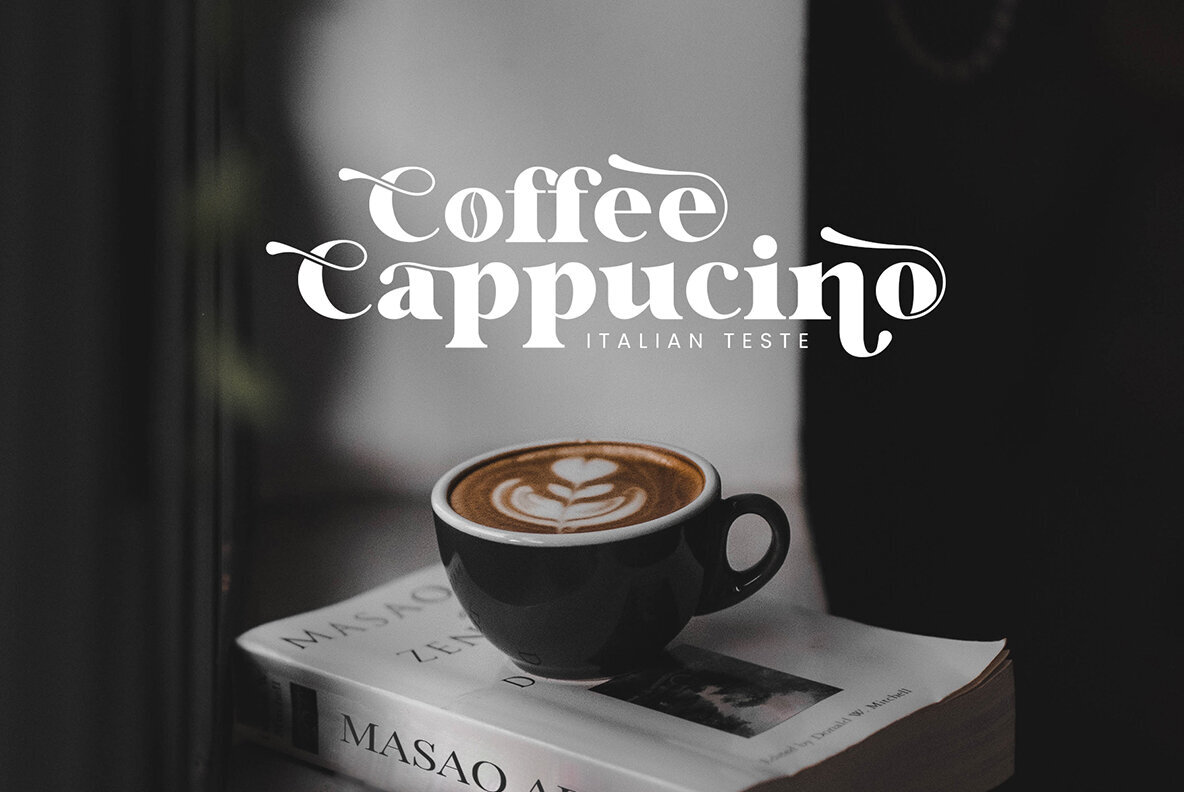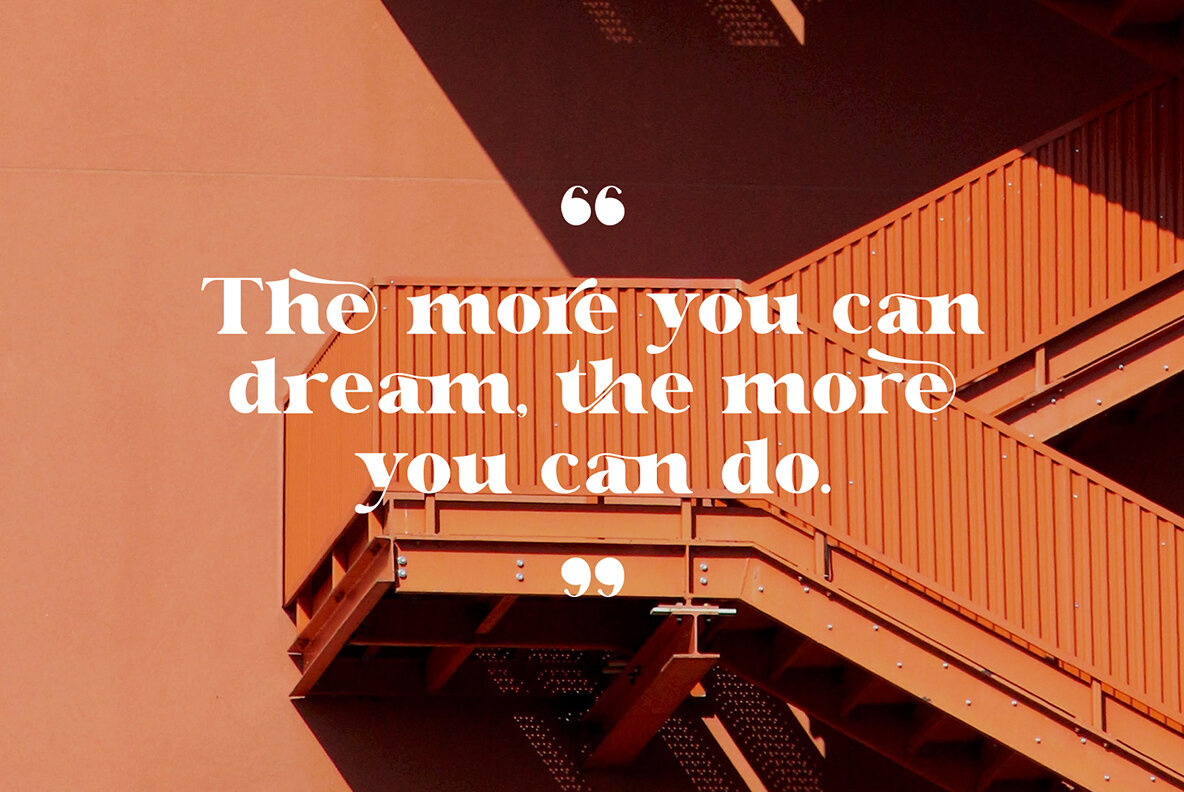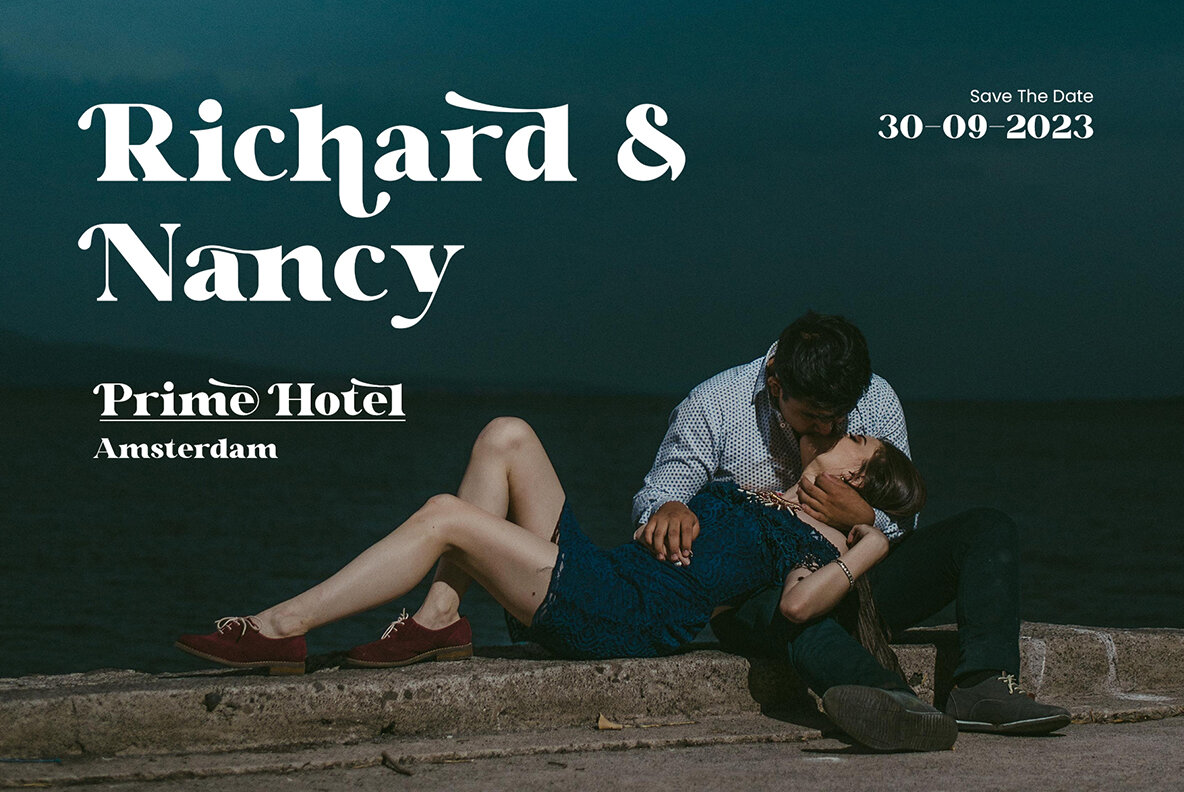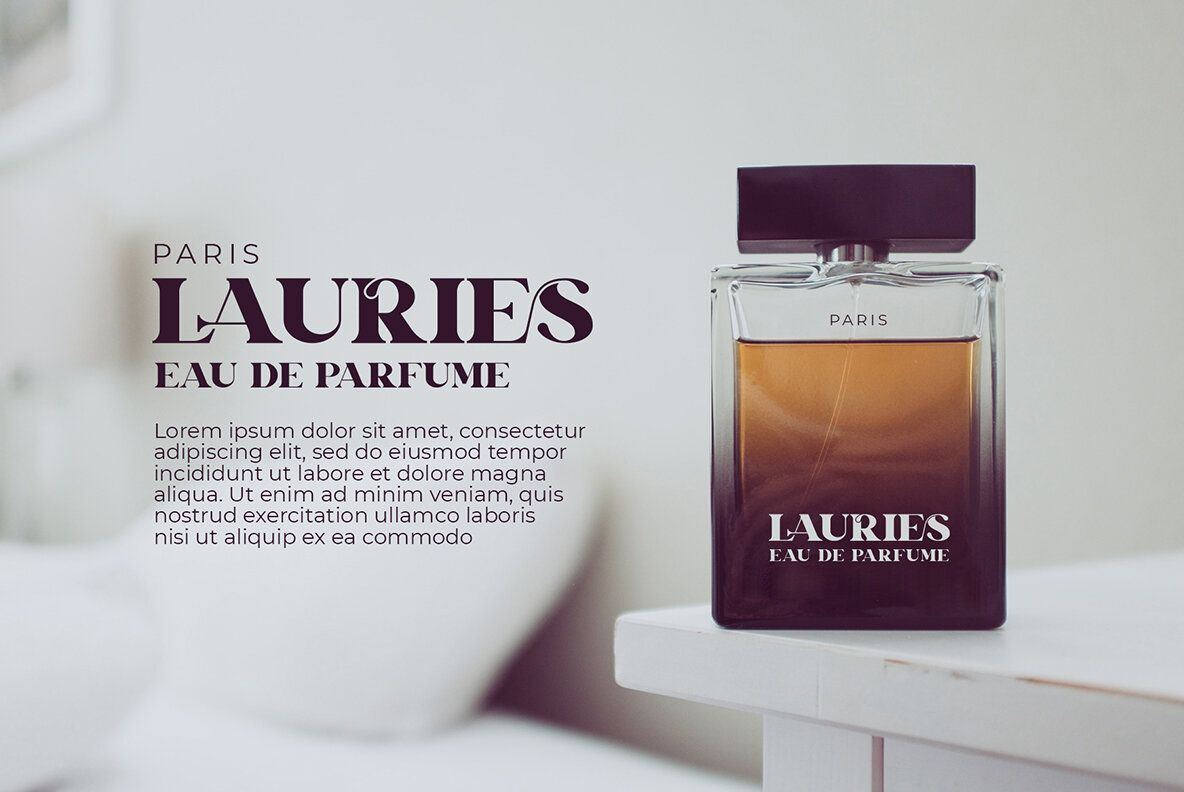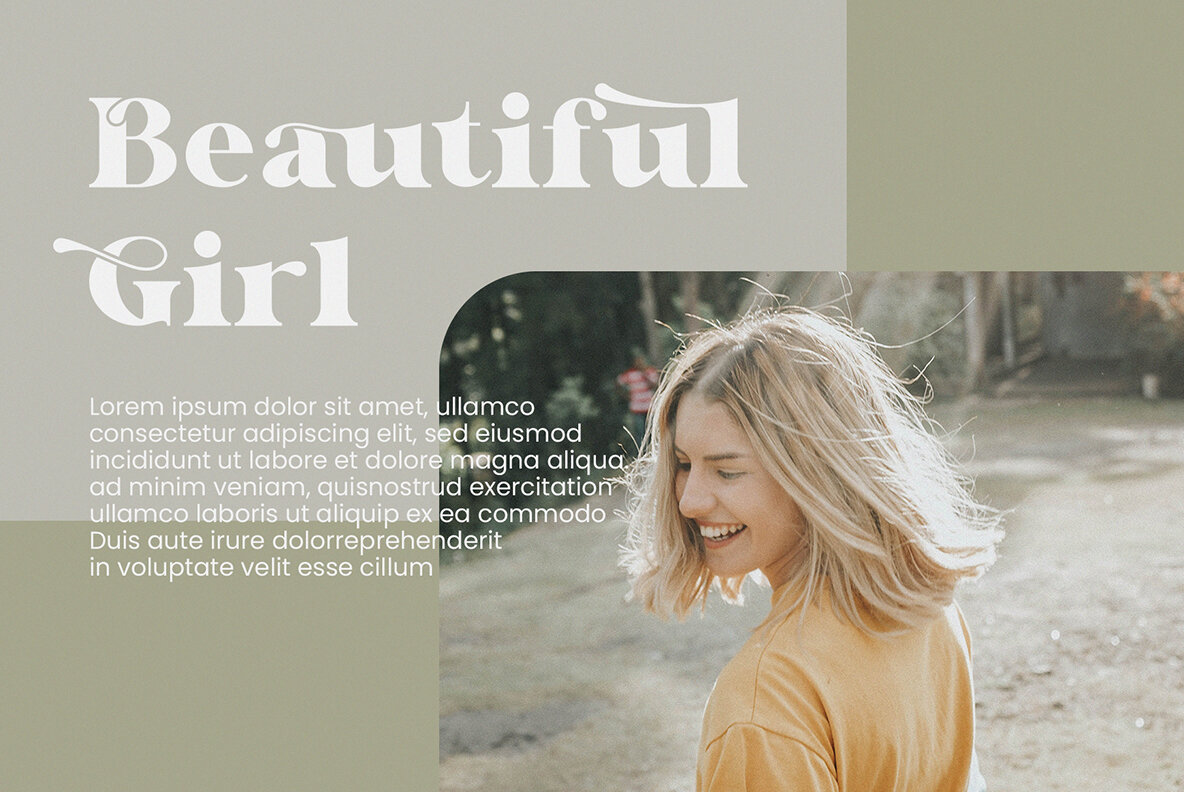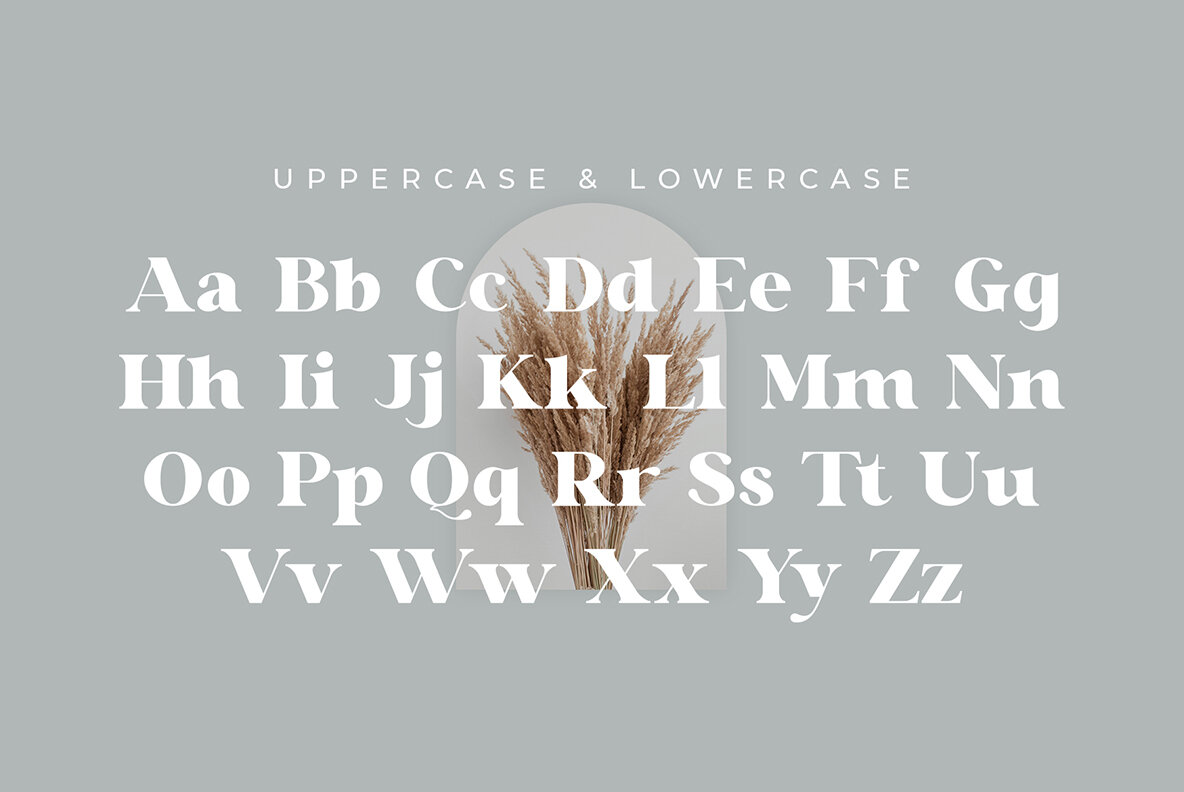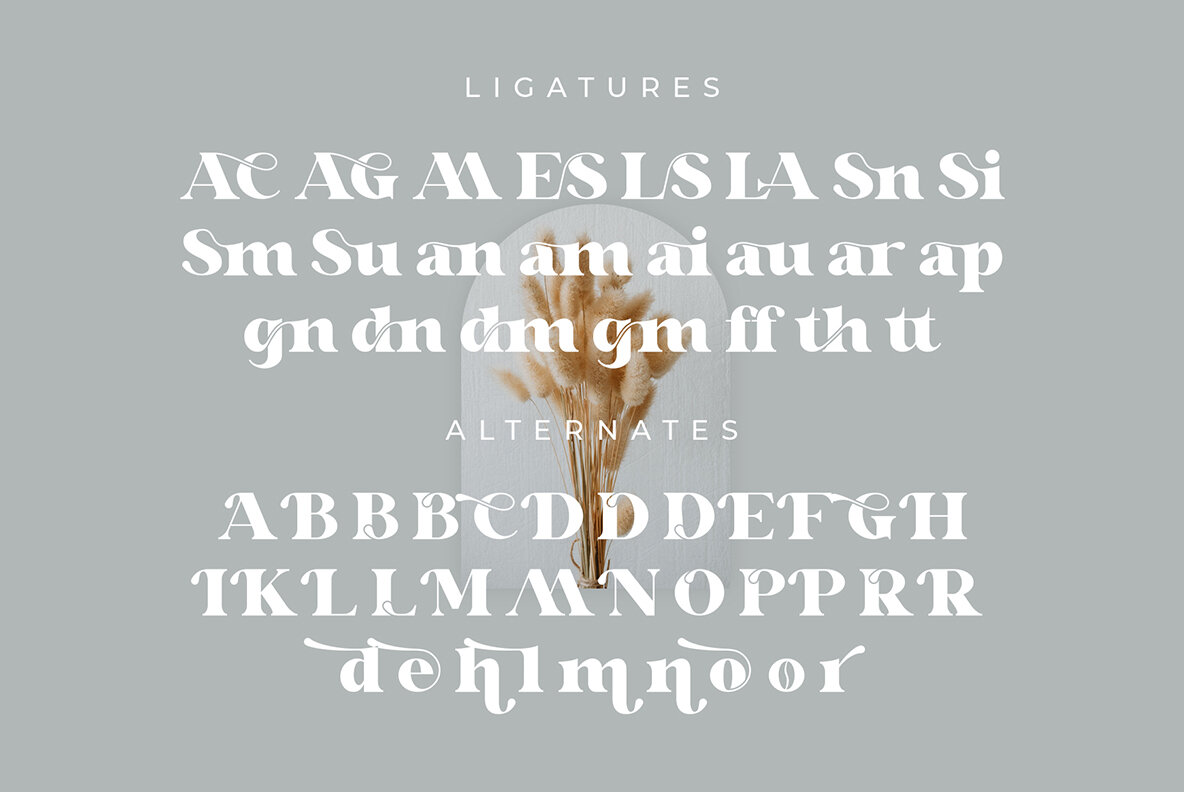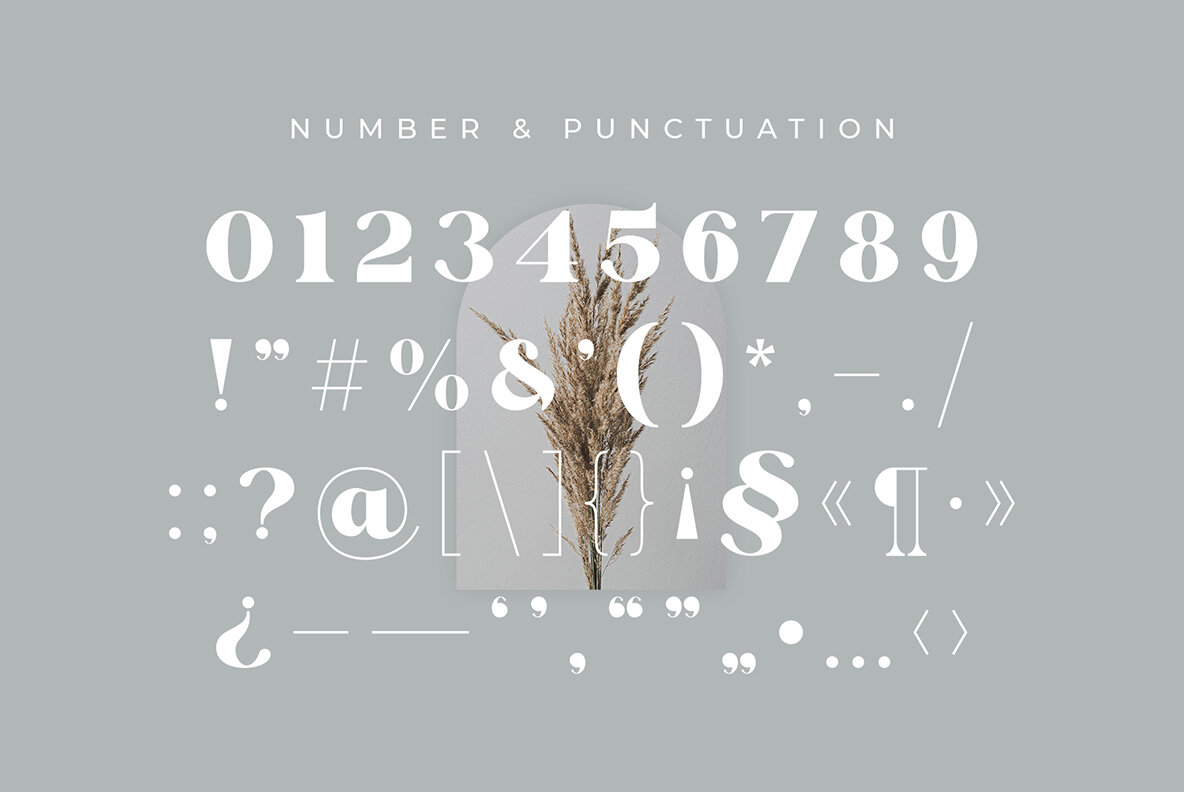
Glaure Font
Glaure Regular
Glaure Vintage Serif is a balanced and stylish serif font known for its smooth elegance. It offers a beautiful character that makes it suitable for a wide range of design projects, including invitation cards, company logos, movie titles, business cards, book titles, and brand names. This serif font exudes sophistication, with stylish alternations and ligatures that enhance its versatility.Glaure Vintage Serif: Elegant and Versatile Design